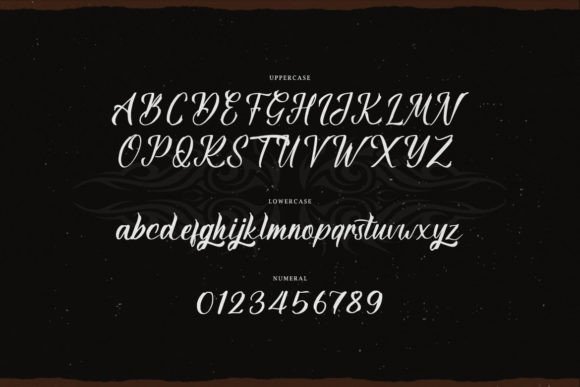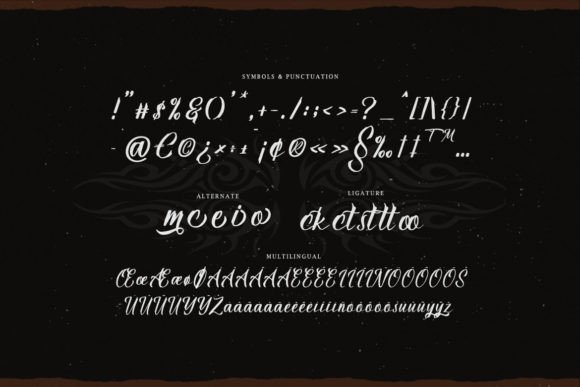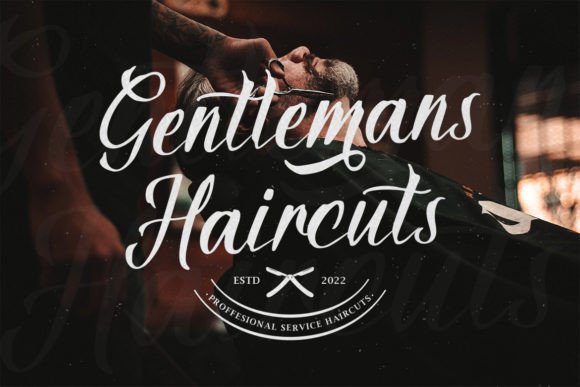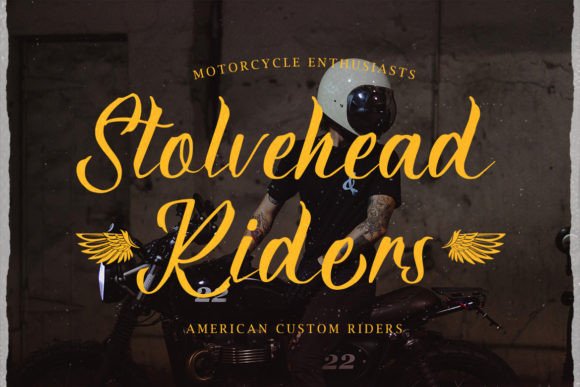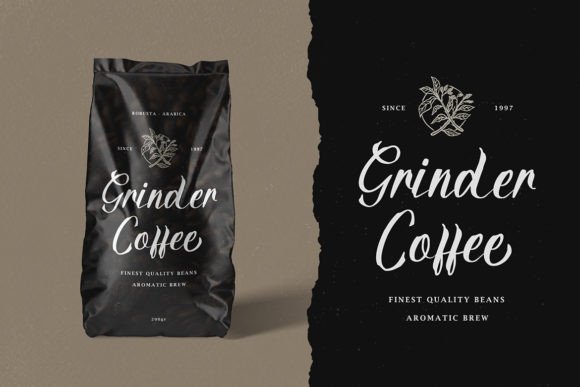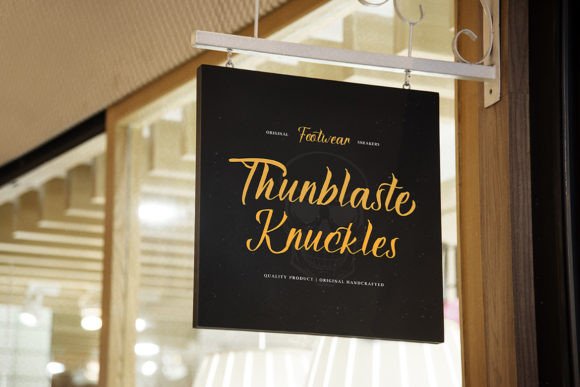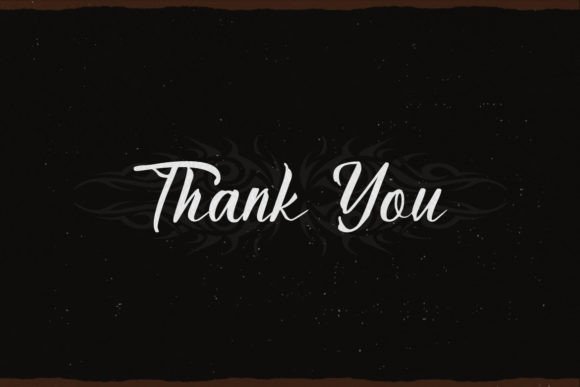
Wynthear Font
About Wynthear Font
“Wynthear” is a vintage script font designed to evoke a sense of nostalgia and timeless charm. Its versatile nature makes it suitable for a wide range of purposes, adding a vintage touch to logos, headings, coffee shop branding, vintage restaurants, letterheads, signage, labels, news articles, posters, badges, and many more design applications.
The vintage script style of “Wynthear” gives it a classic and enduring quality, making it a perfect choice for projects that aim to capture the essence of the past. Whether you’re working on branding for a coffee shop with a retro vibe, creating signage for a vintage-inspired restaurant, or designing labels for a product that requires a touch of nostalgia, this font is well-suited for the task.
The versatility of “Wynthear” shines through in its ability to adapt to various design contexts. It can seamlessly transition from logo designs to news articles, maintaining its vintage charm throughout. The script nature of the font adds a sense of personality and character, making it a standout choice for projects where a unique and timeless aesthetic is desired.
In conclusion, “Wynthear” is a vintage script font that brings a touch of classic elegance to your designs. Whether you’re working on logos, signage, labels, or posters, let “Wynthear” be the font that infuses your projects with a nostalgic and enduring appeal.